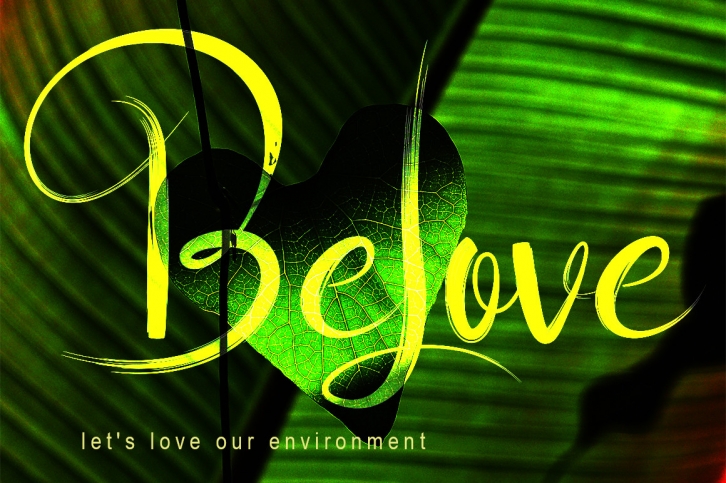
Belove is an enchanting handwritten font. This versatile script font has a wide spectrum of applications ranging from greeting cards to headlines and is guaranteed to add a romantic feel to your next project.